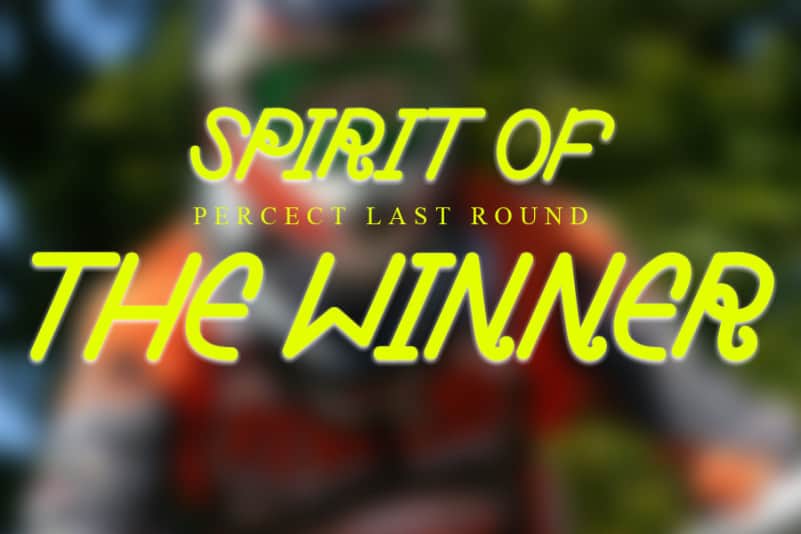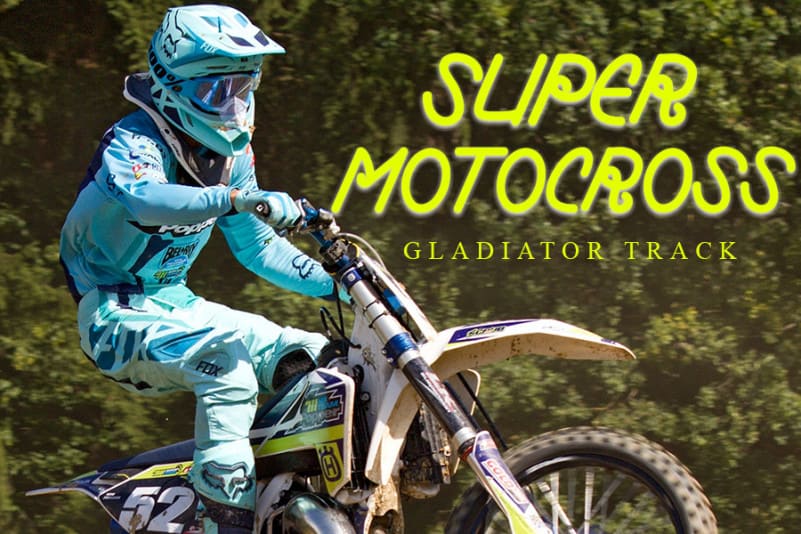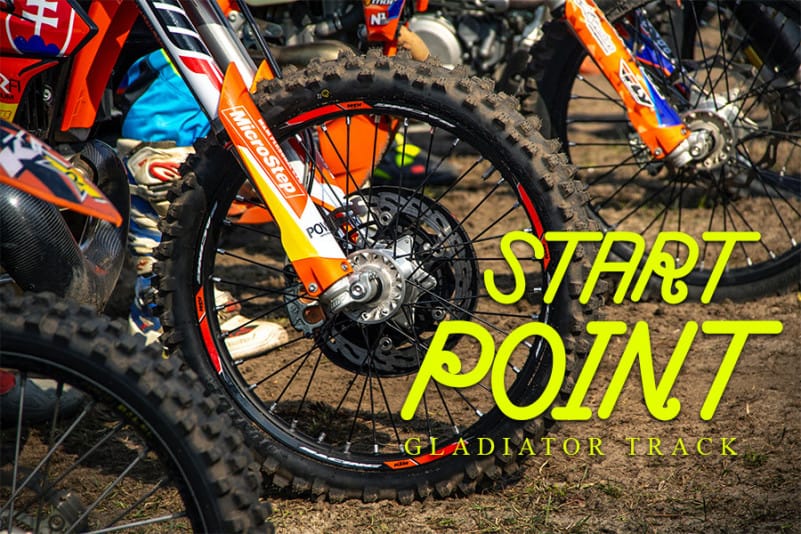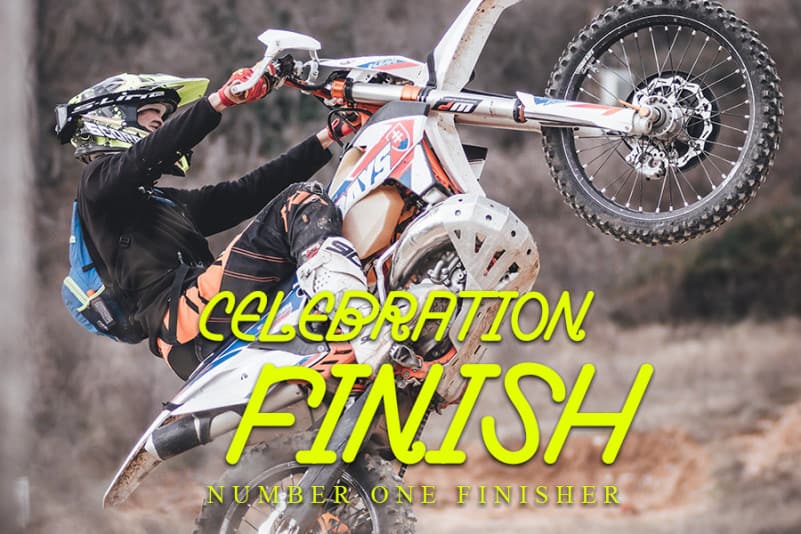
The Maenstream Display Font
The Maenstream Display Font is a great Sans Serif Font. It maintains its classy calligraphic influences while feeling contemporary and fresh. This versatility will appeal to a wide range of crafty ideas, from letterheads and titles to stationery.